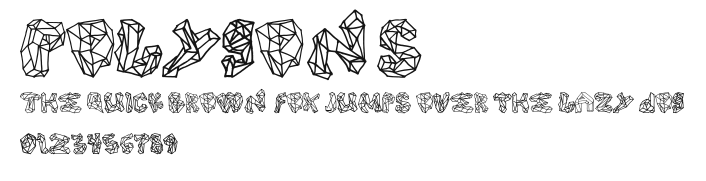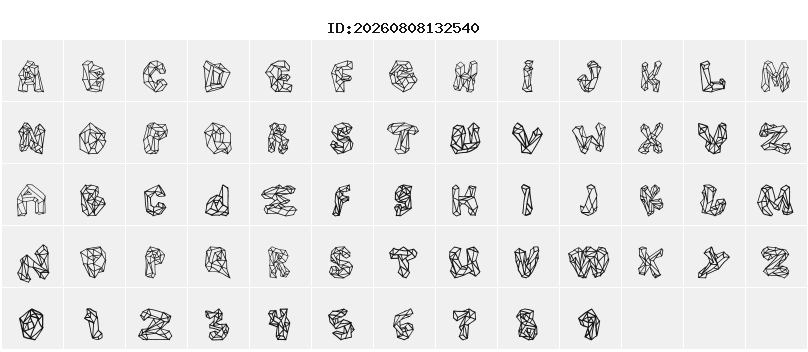
• Font Name: Polygons
• Designer: Carl Krull
• Description: Polygons is a multi vertices crystalline typeface, inspired from structures found in minerals and crystals and constructed with loose discipline. The font is free for personal use only. If used for commercial use, please contact me at mail@carlkrull.dk